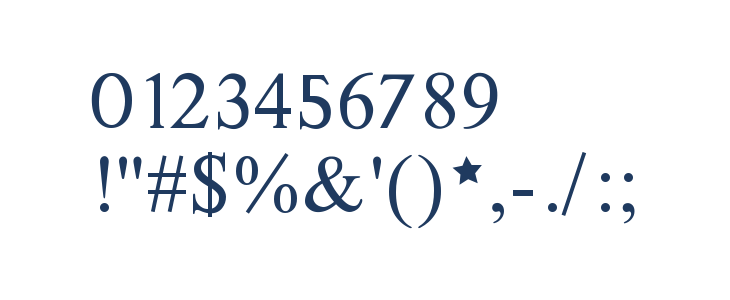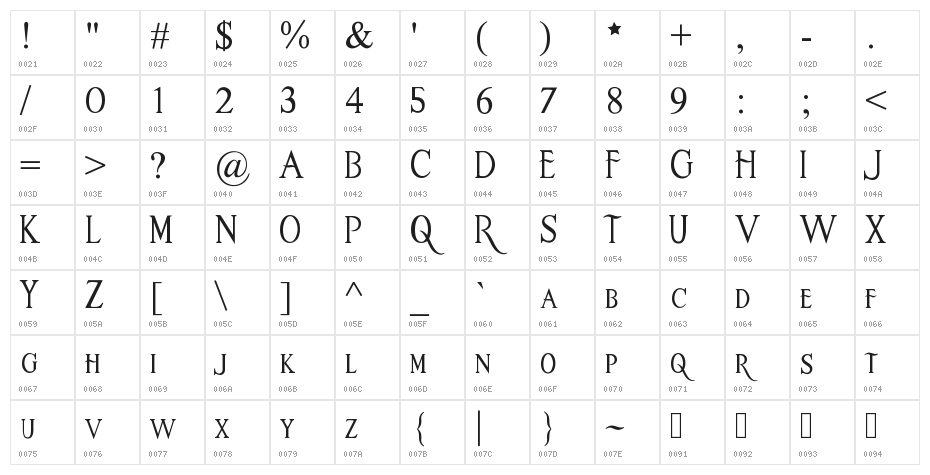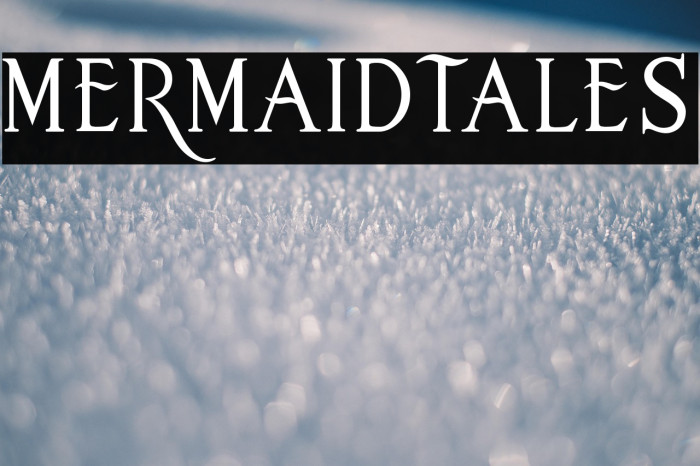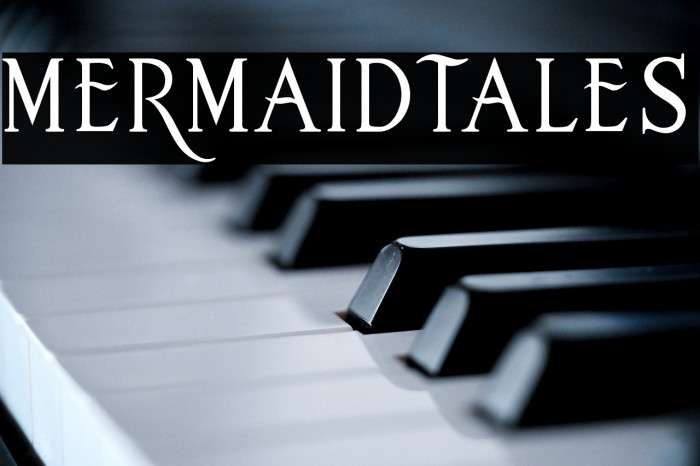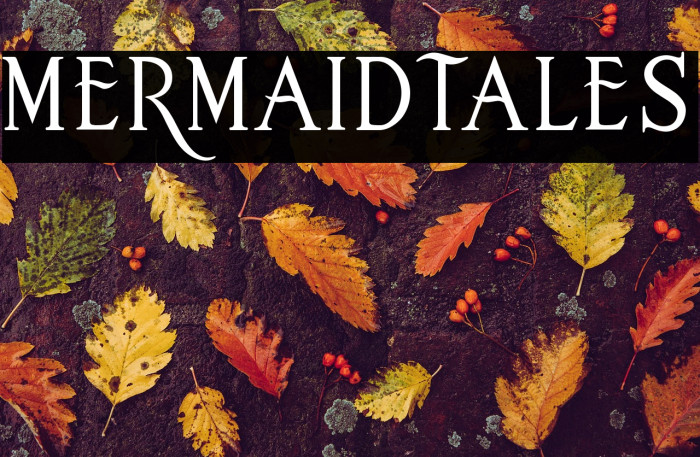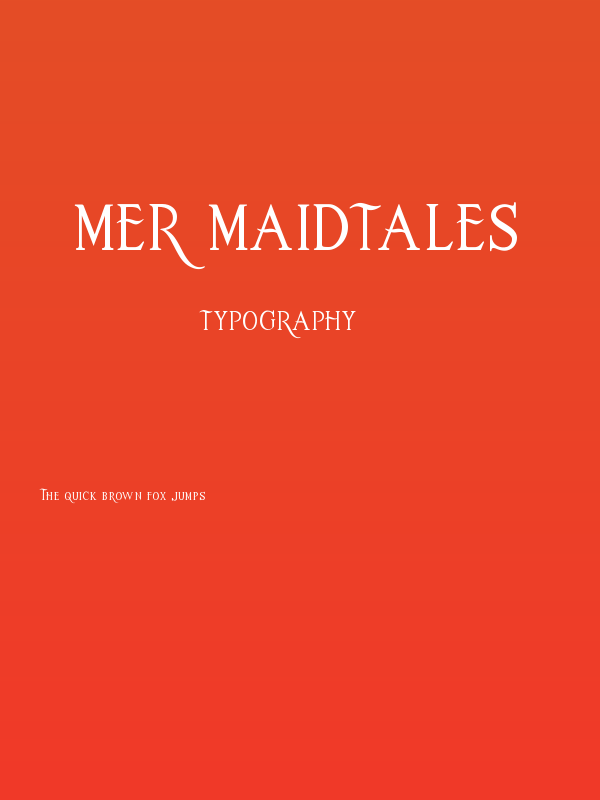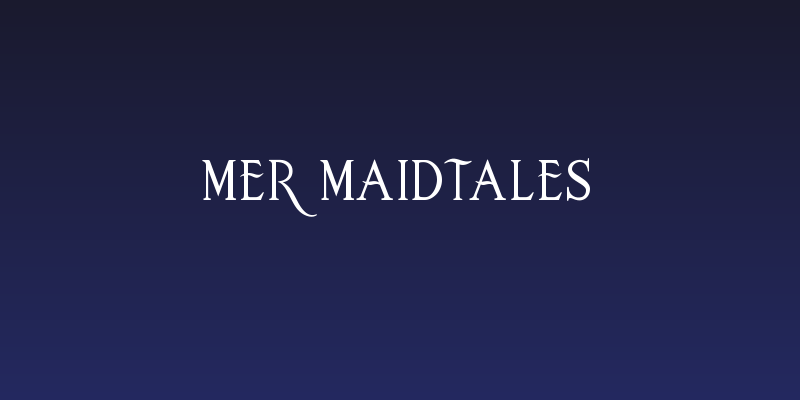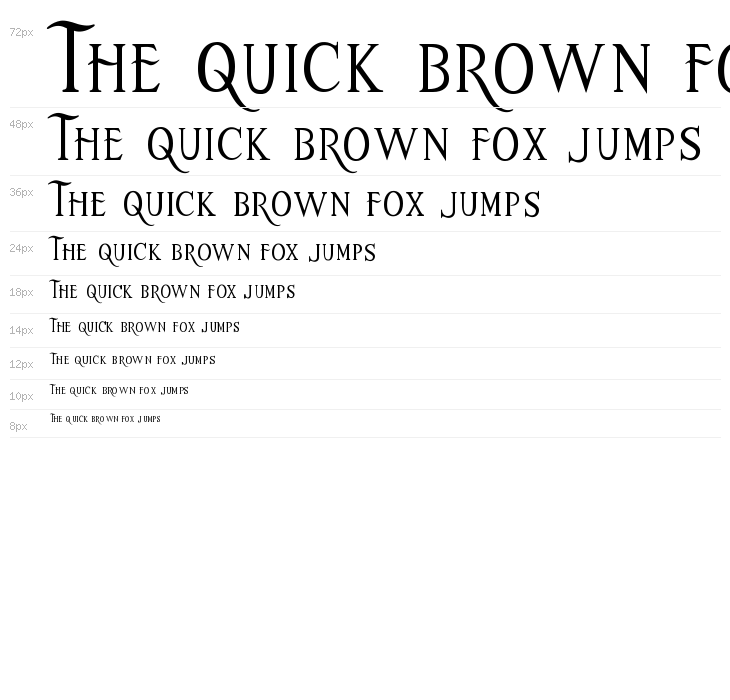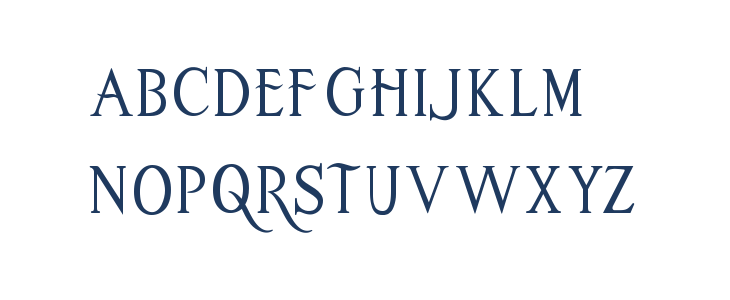
mermaidtales Font
mermaidtales Description
This font features a classic serif style with elegant, flowing curves that give it a sophisticated and timeless appearance. The serifs are pronounced, adding a touch of formality and tradition. The uppercase letters are bold and commanding, while the lowercase letters maintain a graceful and refined look. The numbers are consistent with the overall style, providing a cohesive appearance. Special characters are well-integrated, maintaining the font's aesthetic. The unique design of certain letters, such as the 'Q' and 'R', adds a distinctive flair, making it suitable for creative and artistic projects.